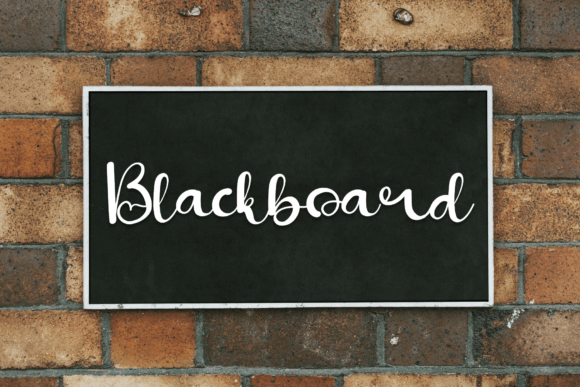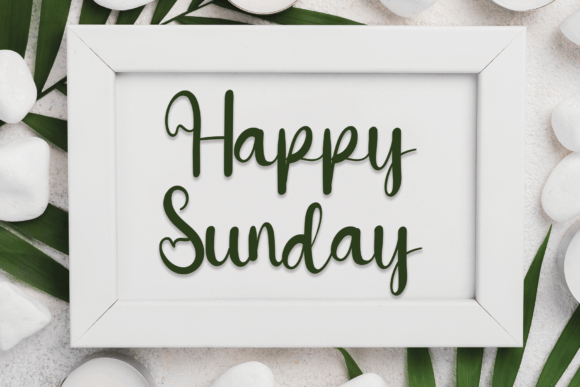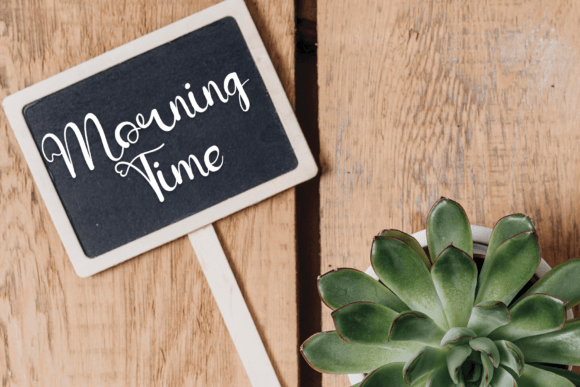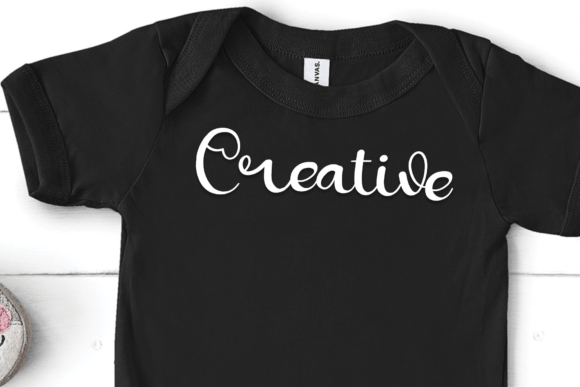
Discover the Delightful World of Butterfly Font
I’ll never forget the time I was working on a project for a client’s birthday card. I had all the design elements ready, but I was stuck on finding the perfect font. The card needed to be fun, friendly, and convey the client’s bubbly personality. That’s when I stumbled upon the Butterfly Font, and it instantly became my go-to choice. In this article, I’ll share my experience with this lovely font, its features, and how you can make the most of it in your designs.
A Personal Review of Butterfly Font
As a designer, I’m always on the lookout for fonts that can elevate my projects and make them more engaging. Here’s what I love about Butterfly Font:
- ✨ Fun and Friendly: Butterfly Font is a handwritten font that exudes warmth and playfulness, making it perfect for a wide range of design projects.
- ✅ Versatile: Whether you’re creating crafts, digital designs, presentations, or greeting cards, this font adapts seamlessly to different contexts.
- 💫 Elegant yet Casual: The font strikes a beautiful balance between elegance and casualness, making it suitable for both formal and informal designs.
While Butterfly Font is an excellent choice, there are a few minor quirks to be aware of:
- 🤔 Limited use of uppercase letters: Some users have noted that the uppercase letters could be more stylized, but this doesn’t detract from the font’s overall charm.
- ⚠️ Occasional kerning issues: As with any font, you may encounter kerning issues in certain design platforms or software. However, these can usually be easily adjusted.
Butterfly Font was designed with the intention of creating a friendly, approachable font that could be used in a variety of design contexts. The designer aimed to craft a font that would evoke feelings of joy and playfulness, making it perfect for creative projects and everyday designs.
| What is Butterfly Font best used for? | Butterfly Font is versatile and can be used for crafts, digital designs, presentations, greeting cards, and more. |
| Is Butterfly Font suitable for body text? | While Butterfly Font is beautiful, it’s best suited for headings and titles. For body text, a clearer font might be more readable. |